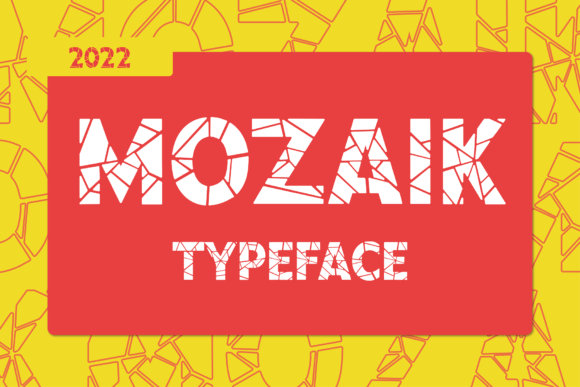
Prepare to be captivated by Mozaik, an exquisite mosaic-inspired typeface that will transform your designs into masterpieces. Its bold, all-caps characters dance across the page, evoking a sense of artistic adventure and untamed wilderness.
Mozaik is the perfect companion for your daring designs. Its mosaic-like patterns add a touch of whimsy to your headlines, posters, and social media posts. Imagine your audience entranced by the allure of Mozaik, their eyes drawn to its intricate beauty.
This font is a true gem for those seeking to ignite their creativity. Its versatility knows no bounds, effortlessly adapting to a world of possibilities. Whether you're crafting eye-catching logos, designing stunning album covers, or creating captivating YouTube banners, Mozaik will elevate your work with its captivating presence.
With Mozaik, you'll embark on a design journey like no other. Its mosaic-inspired artistry will ignite your imagination, inspiring you to create designs that are as unique and unforgettable as the typeface itself.
Prepare to experience the allure of Mozaik and let your creativity soar to new heights. Its mosaic-inspired beauty will captivate your audience, leaving them in awe of your design prowess.